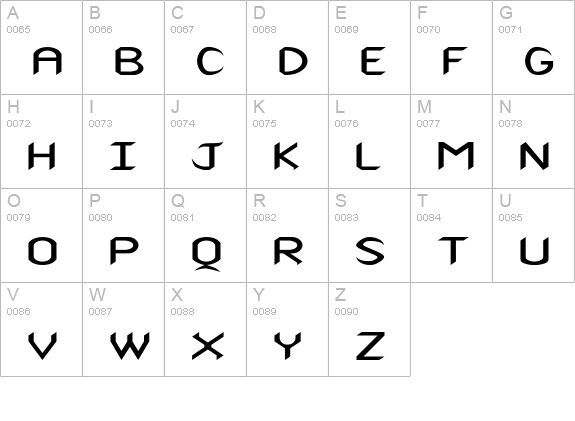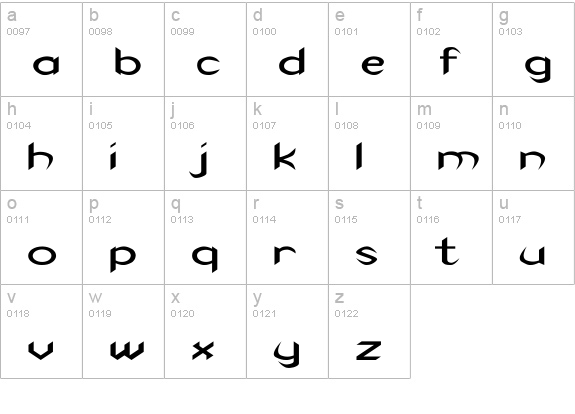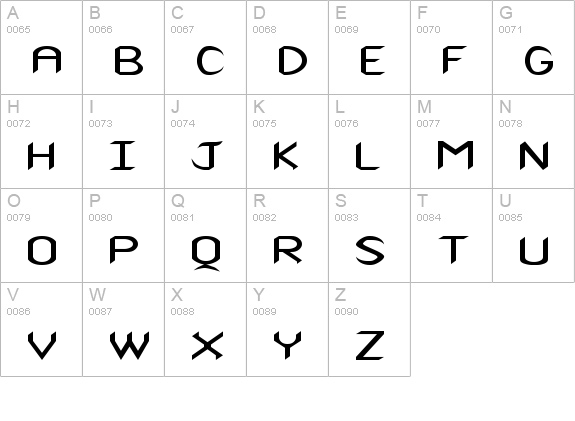
Rscanaith Ex Font Details
The Rscanaith Ex font is a modern and sleek typeface that exudes elegance and sophistication. Its sharp lines and stylish curves make it perfect for a wide range of design projects, from branding to editorial design. This versatile font is sure to make your text stand out and leave a lasting impression on your audience. What's even better is that the Rscanaith Ex font is completely free to download at FontsMarket.com. So, you can elevate your designs without breaking the bank. Don't miss out on this amazing opportunity to add a touch of class to your projects with the Rscanaith Ex font. Download it today and let your creativity shine!